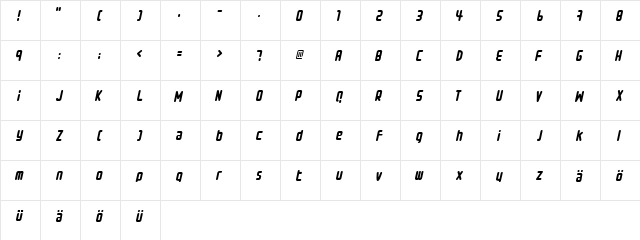
Small type (italic) Regular
Design Context for Small type (italic) Typeface
Small type (italic) takes a measured approach to typography — its balanced proportions and neutral character make it a reliable workhorse for both digital and print work. The dynamic lean of this cut emphasises speed and emphasis in any layout.
Pro Tip: Use Small type (italic) for emphasis, pull quotes, and subheadings where its slanted energy can add rhythm to the layout.